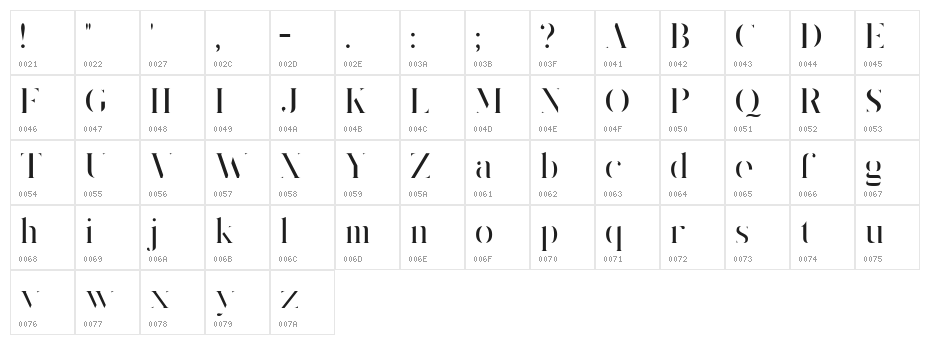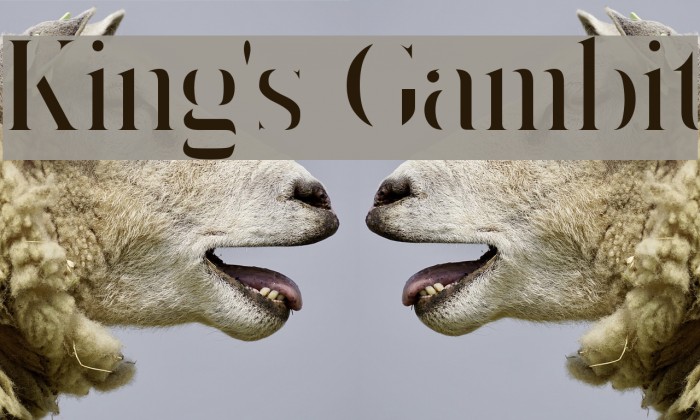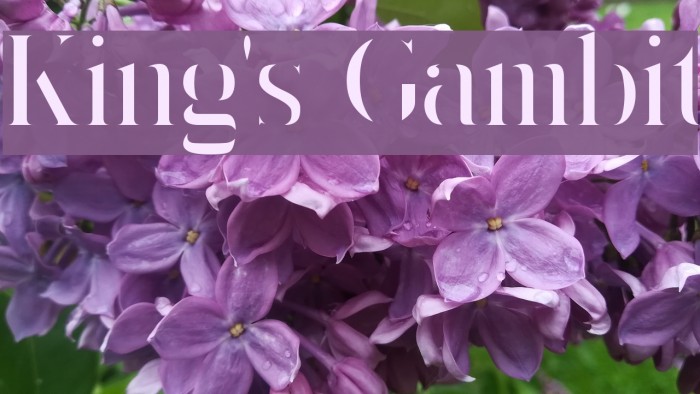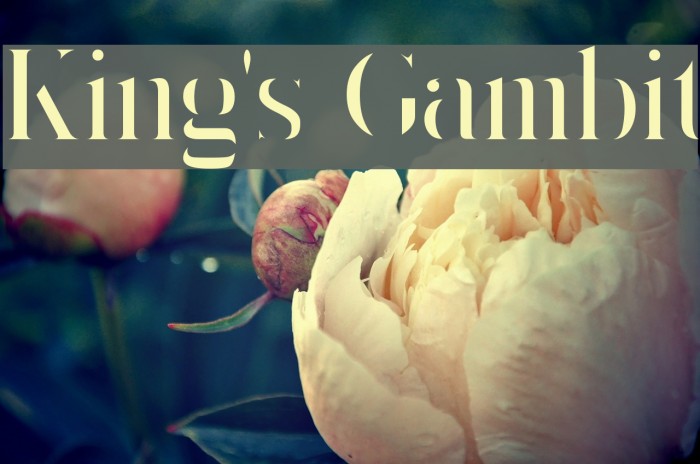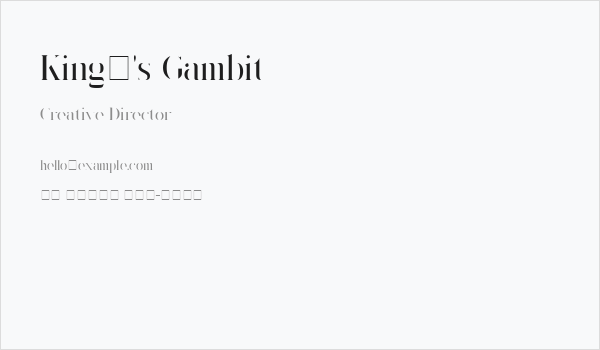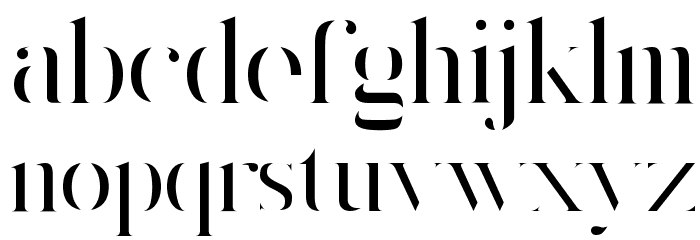
King's Gambit Font
King's Gambit Description
This font features a striking and bold design with high contrast between thick and thin strokes, creating a dramatic and elegant appearance. The uppercase letters are particularly distinctive, with sharp, angular serifs and a modern flair. The lowercase letters maintain a consistent style, offering a cohesive look across the alphabet. The numerals and special characters are designed to match the overall aesthetic, ensuring versatility in various design contexts. This font's unique style makes it suitable for eye-catching headlines and branding projects.